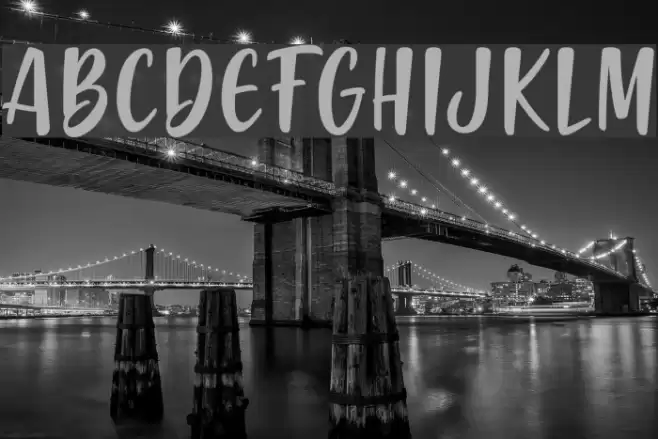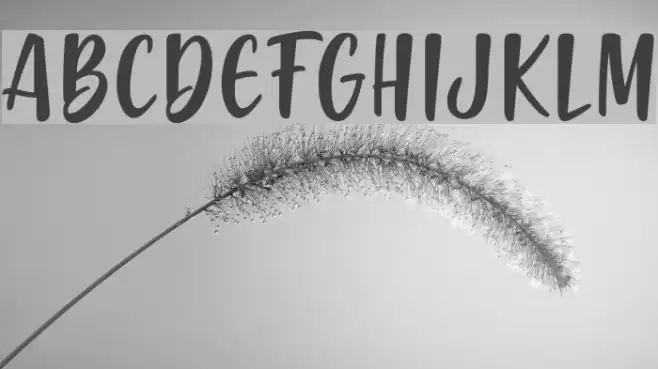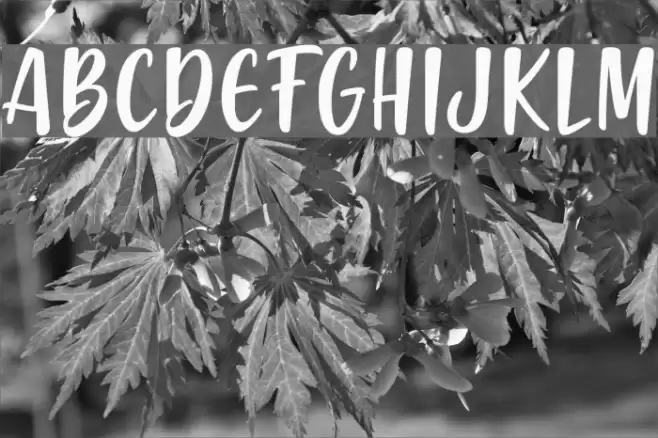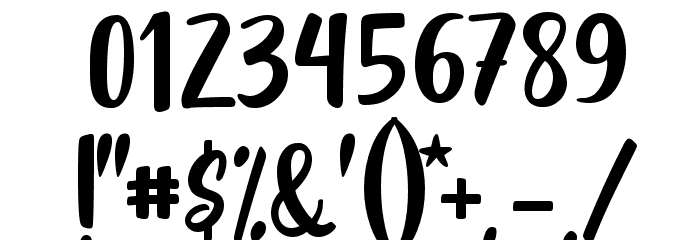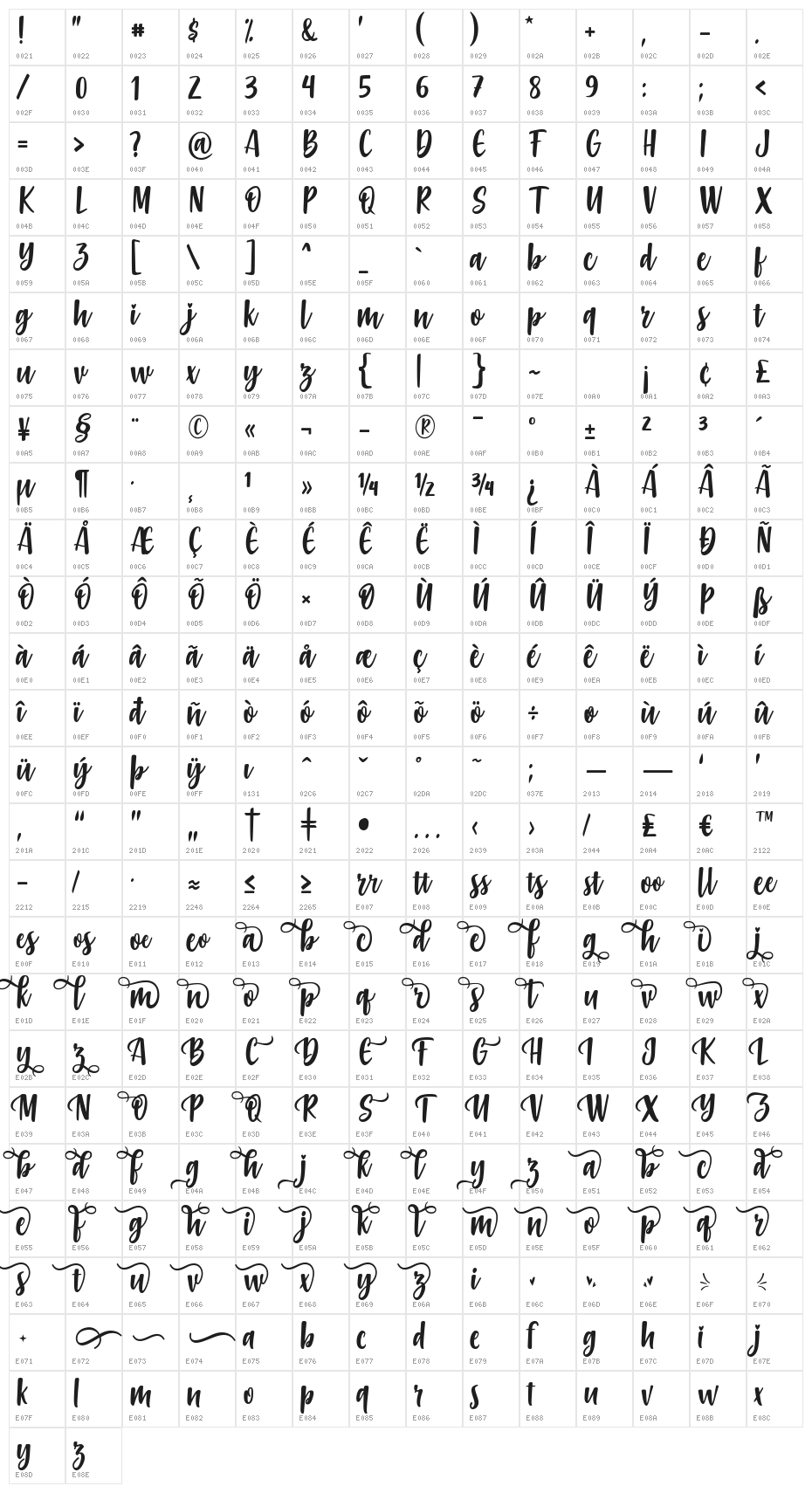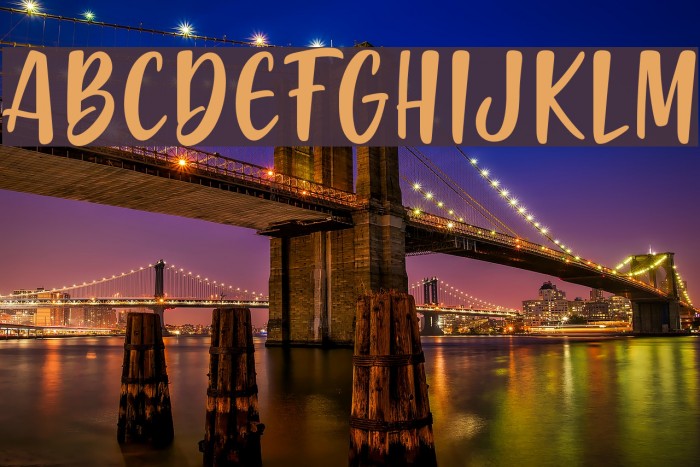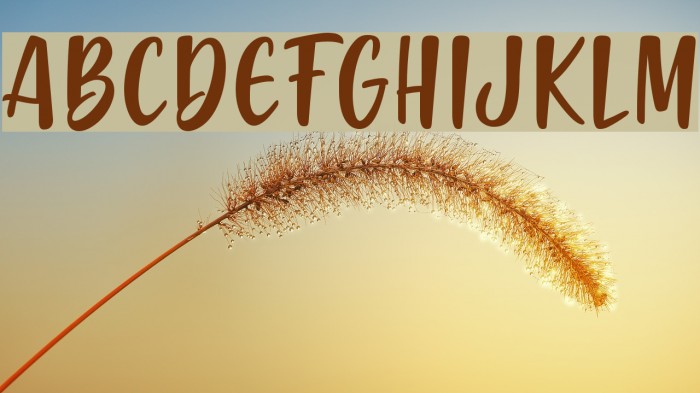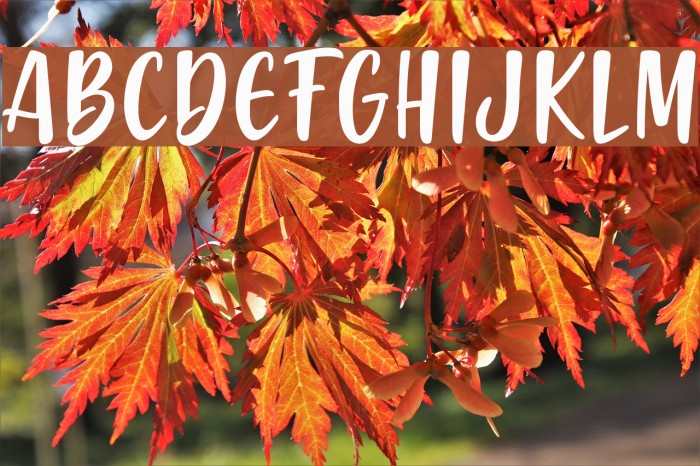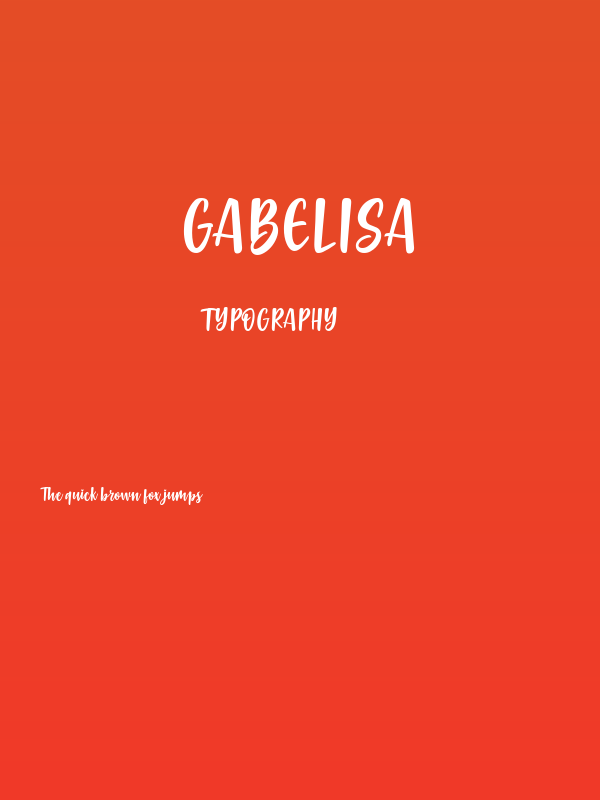
Gabelisa Font
Gabelisa Description
This font features a bold, handwritten style with a playful and energetic vibe. The characters are slightly slanted, giving a sense of movement and fluidity. The uppercase letters are tall and slightly narrow, while the lowercase letters maintain a consistent height, creating a harmonious balance. The strokes are thick and rounded, adding to the font's friendly and approachable appearance. The numbers and special characters are designed to match the overall style, ensuring consistency throughout. This font is ideal for projects that require a personal touch or a casual, informal look.
A bold, handwritten font with a playful and energetic style from Uncategorized fonts.